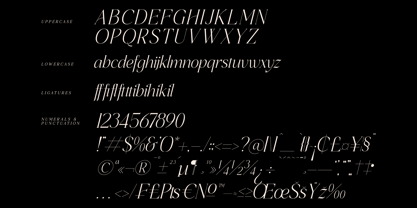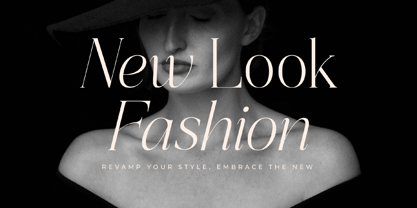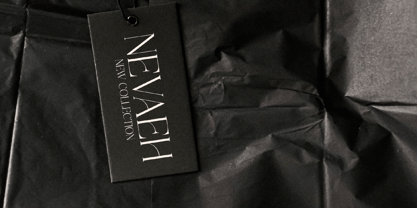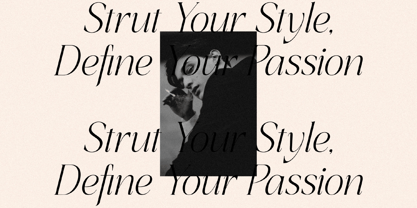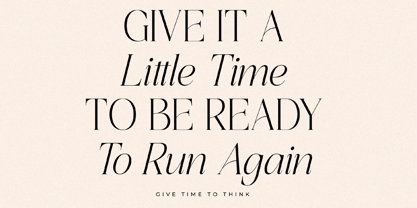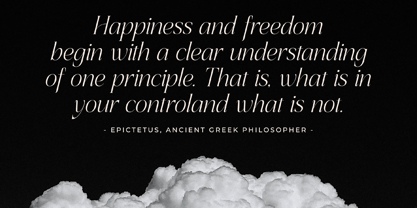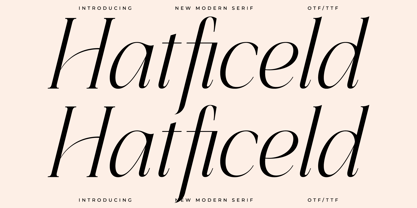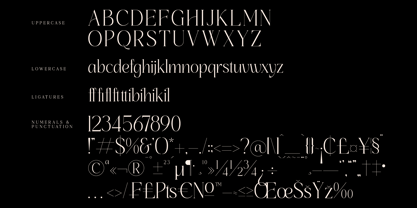
Hatficeld
The Hatficeld Font Family was designed by Heru Utama Putra and published by Letterena Studios. Hatficeld contains 4 styles and family package options.
Hatficeld is a refined modern serif designed with elongated strokes, elegant contrast, and a delicately sculpted structure that brings a sense of luxury and contemporary sophistication to any layout. Its tall proportions, graceful curves, and sharp transitional serifs create a stylish balance between classic editorial typography and modern minimalist aesthetics, making it ideal for branding, fashion magazines, packaging, logos, wedding designs, and premium visual identities. Hatficeld delivers a polished, high-fashion look while remaining versatile and readable, ensuring every project feels intentional, elevated, and unmistakably elegant.